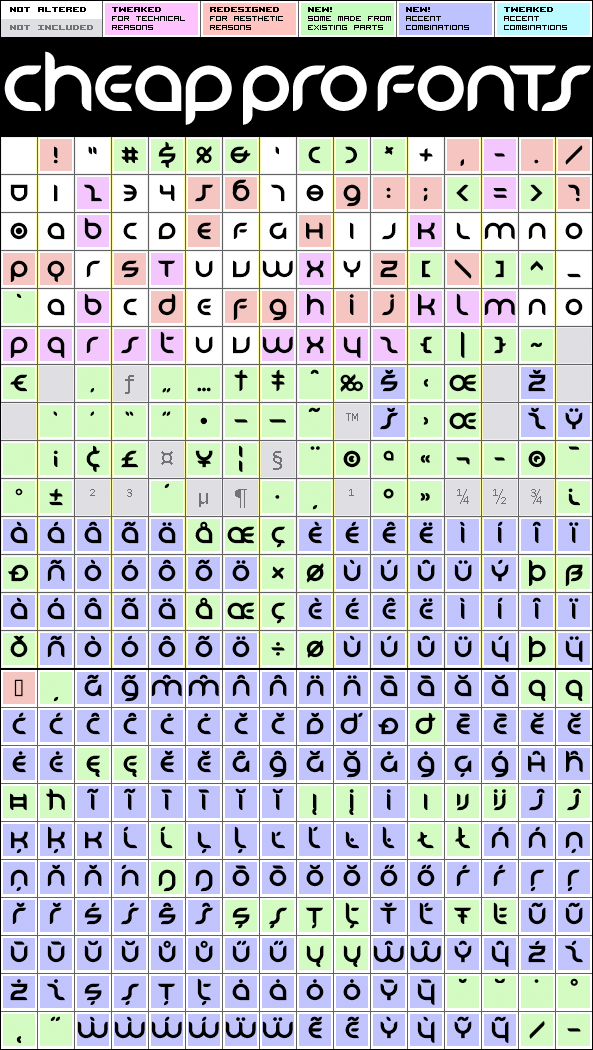
Danube Pro by Levente Halmos
144 class kernpairs
= 19362 kerning pairs
(474 in original)
This cool techno font is easily recognizable with its quite unique stroke endings. I have increased the ascenders and descenders slightly (so they would work better with the new diacritic letters) and introduced a few alternate letterforms in addition to generally expanding the character set.
A totally enjoyable reworking of an original design. :)
Danube Pro is a professionally reworked font that contains an extended character set for setting text in 65 languages requiring more than the basic A-Z!